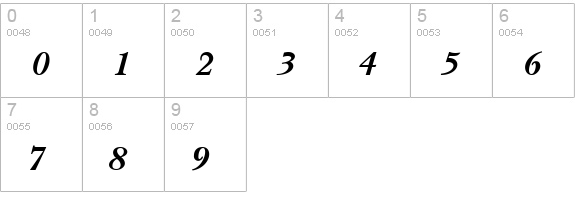
Baskerville SSi Semi Bold Italic Font Details
Baskerville SSi Semi Bold Italic is a strong, high-contrast, italic variant in the Baskerville typeface family \xE2\x80\x94 well suited to headlines, attention-grabbing titles, and strong calls-to-action.
Baskerville SSi Semi Bold Italic font exudes elegance and sophistication with its sleek and refined appearance. The semi-bold weight adds a touch of modernity, while the italic style conveys a sense of dynamism and movement. This versatile typeface is perfect for conveying a sense of luxury and timelessness in various design projects. The best part is that this stunning font is available for FREE download at FontsMarket.com. Whether you're working on branding materials, editorial designs, or any creative project that calls for a touch of sophistication, Baskerville SSi Semi Bold Italic font is sure to elevate your work to the next level. Download it today and add a touch of class to your designs effortlessly.